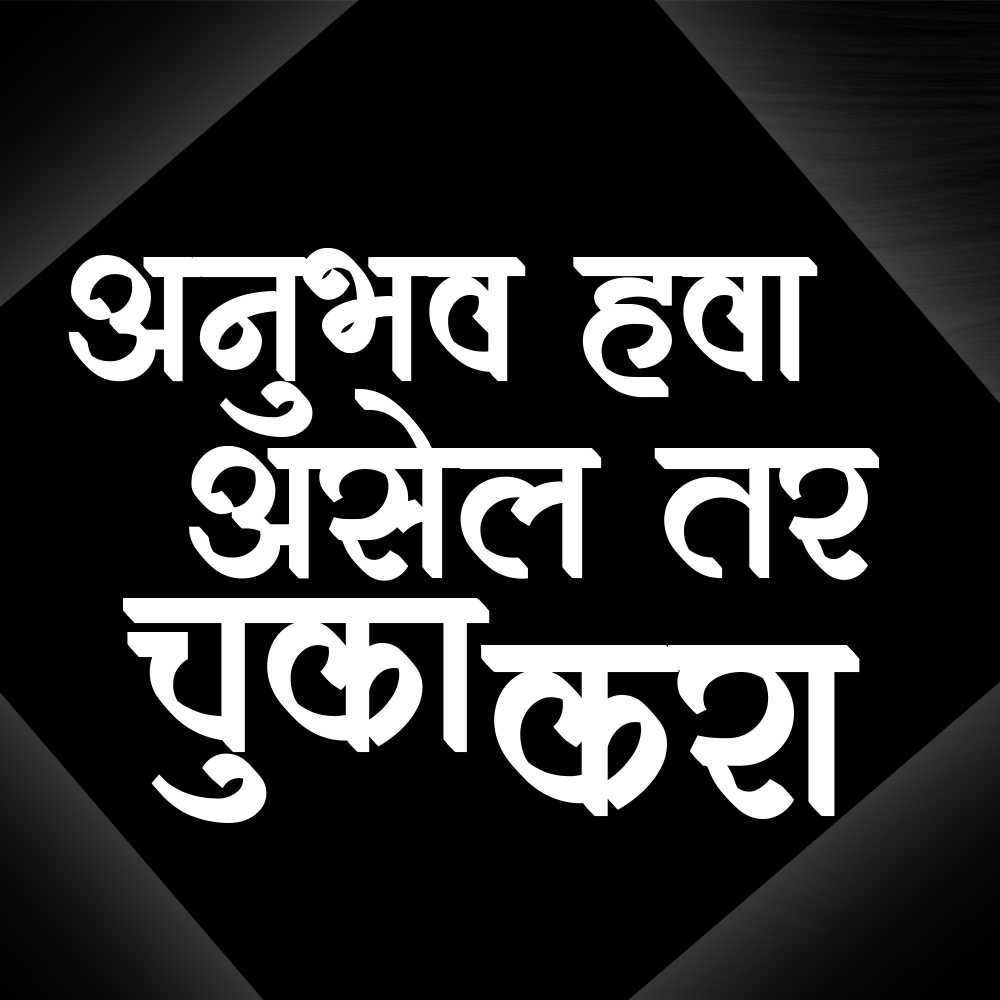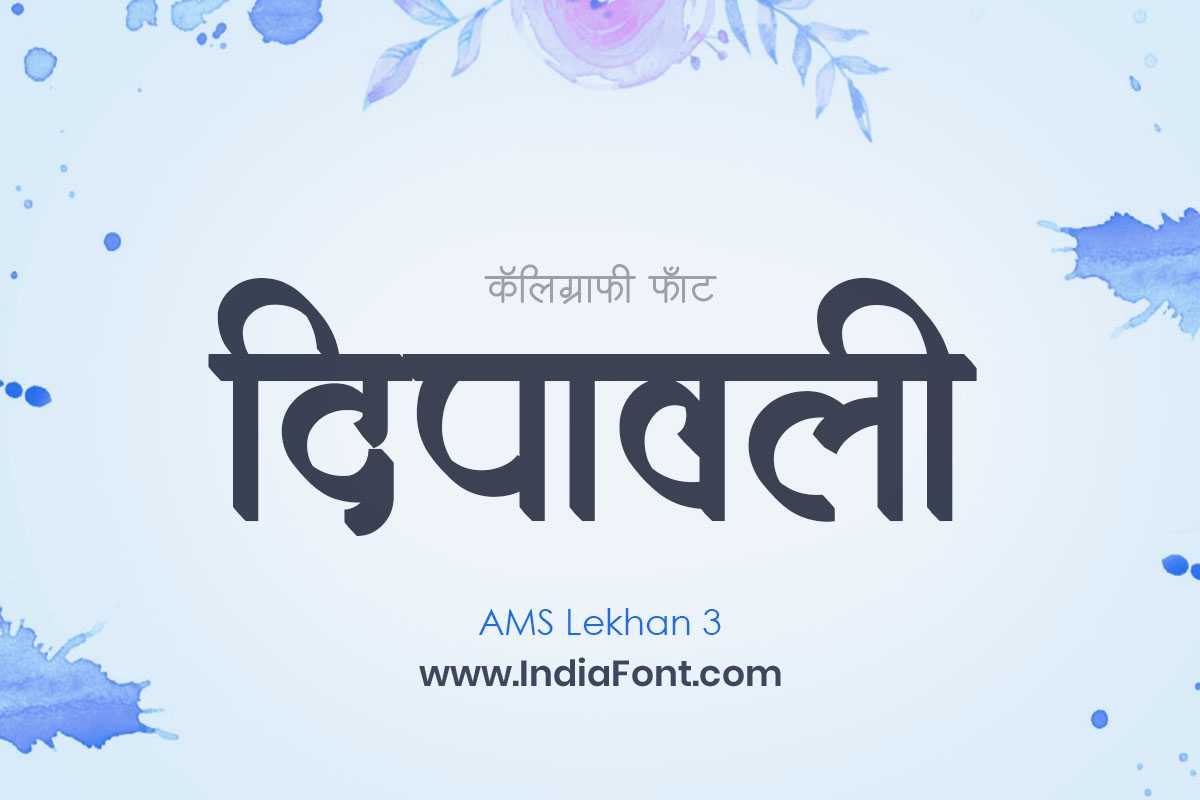
AMS Lekhan 3
Enhance the readability and professionalism of your publications with AMS Lekhan 3, a font designed for clear communication. Whether you're searching for free AMS fonts, specifically looking for AMS Lekhan 3 font download options, or exploring AMS publication fonts, AMS Lekhan 3 ensures your content is presented with clarity and elegance.
About AMS Lekhan 3 Font
Enhance the readability and professionalism of your publications with AMS Lekhan 3, a font designed for clear communication. Whether you're searching for free AMS fonts, specifically looking for AMS Lekhan 3 font download options, or exploring AMS publication fonts, AMS Lekhan 3 ensures your content is presented with clarity and elegance. This publication font combines elegance with functionality, making it perfect for various design applications.
AMS Lekhan 3 is a professionally crafted publication typeface that brings clarity and style to your projects. Designed with attention to detail, it supports hindi and marathi characters flawlessly.
Whether you're working on logos, posters, books-publications, or other creative projects, AMS Lekhan 3 delivers consistent performance across both digital and print media. This carefully designed typeface ensures readability and visual appeal in all your design work.
About AMS Lekhan 3 Typography Style
AMS Lekhan 3 is a professionally crafted publication font that exemplifies modern Hindi typography design. This free font is perfect for designers seeking professional branding and logo design projects.
Available in 1 weight and supporting hindi, marathi scripts, AMS Lekhan 3 offers exceptional versatility for both digital and print media. Whether you're working on logos, posters, books-publications, this carefully designed typeface ensures consistent quality and professional results across all your typography projects.